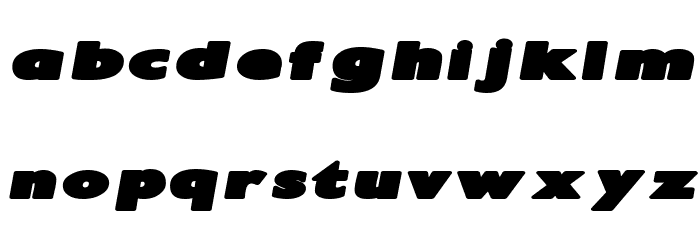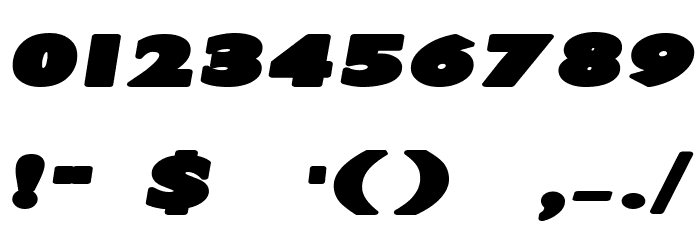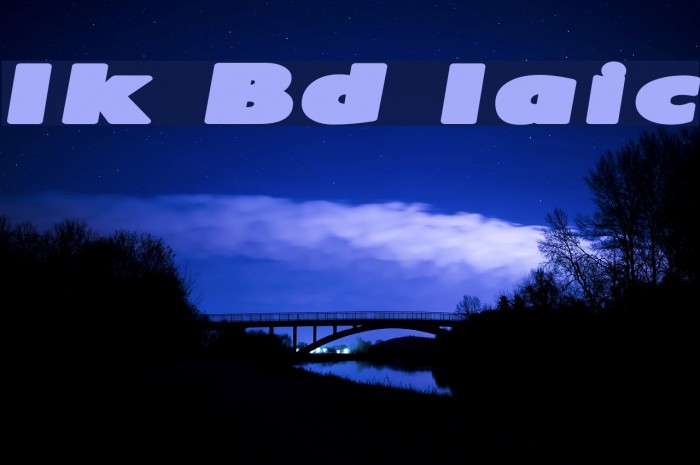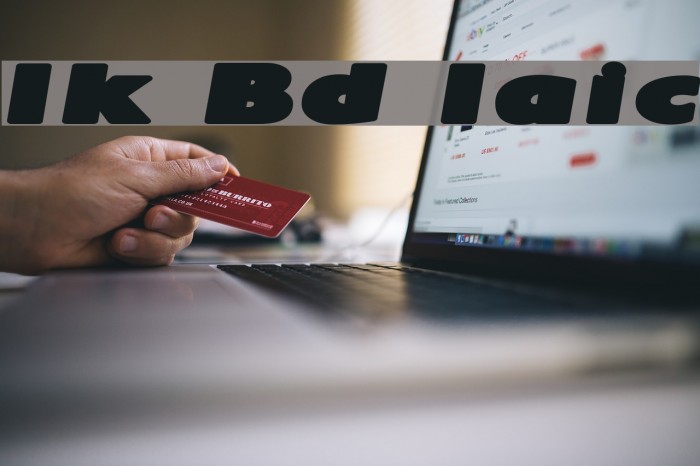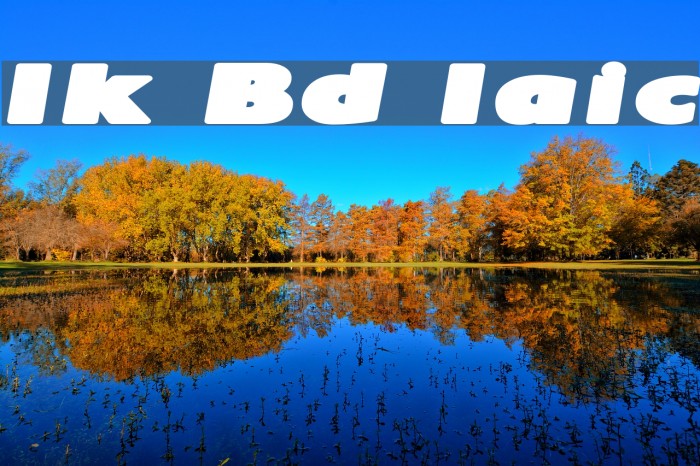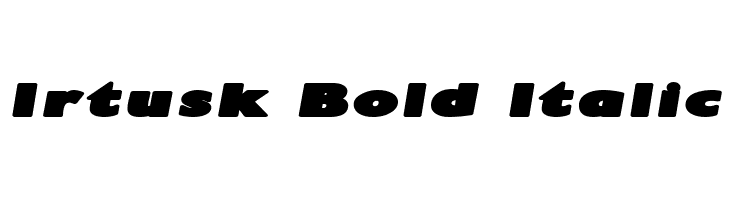
Irtusk Bold Italic Font
This bold and italicized font features a strong, dynamic presence with thick, rounded strokes that convey a sense of power and movement. The uppercase letters are particularly striking, with a slight forward slant that adds to the font's energetic feel. The lowercase letters maintain the same boldness, ensuring consistency across text. Numbers and special characters are equally robust, making this font versatile for various applications. The overall design is modern and impactful, suitable for making statements in any design project.
A bold, italicized font with thick, rounded strokes and a modern, dynamic style.
- Proposed Projects: Ideal for branding, advertising, headlines, and any project requiring a strong visual impact.
- Use Case: Headlines, Logos, Advertising